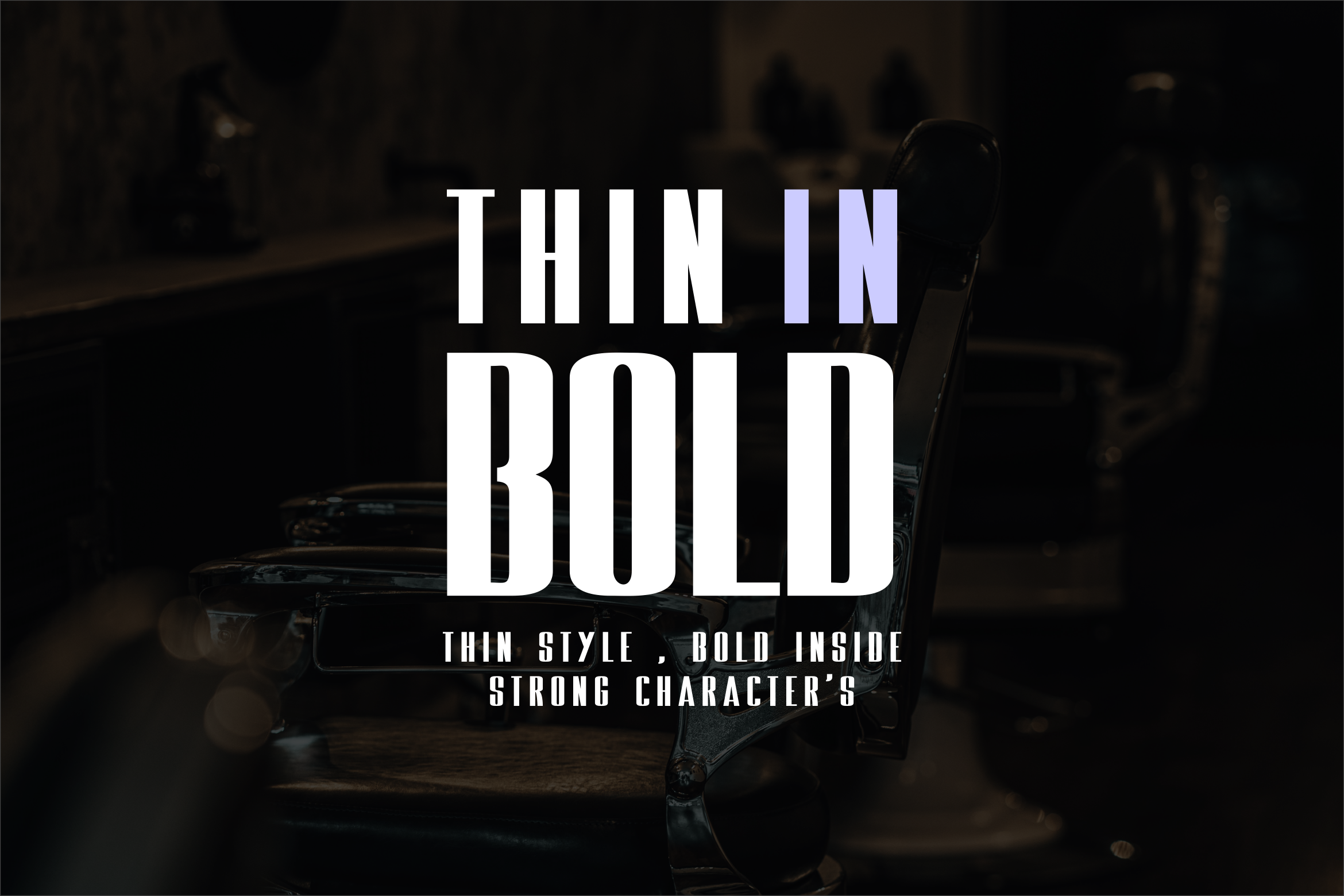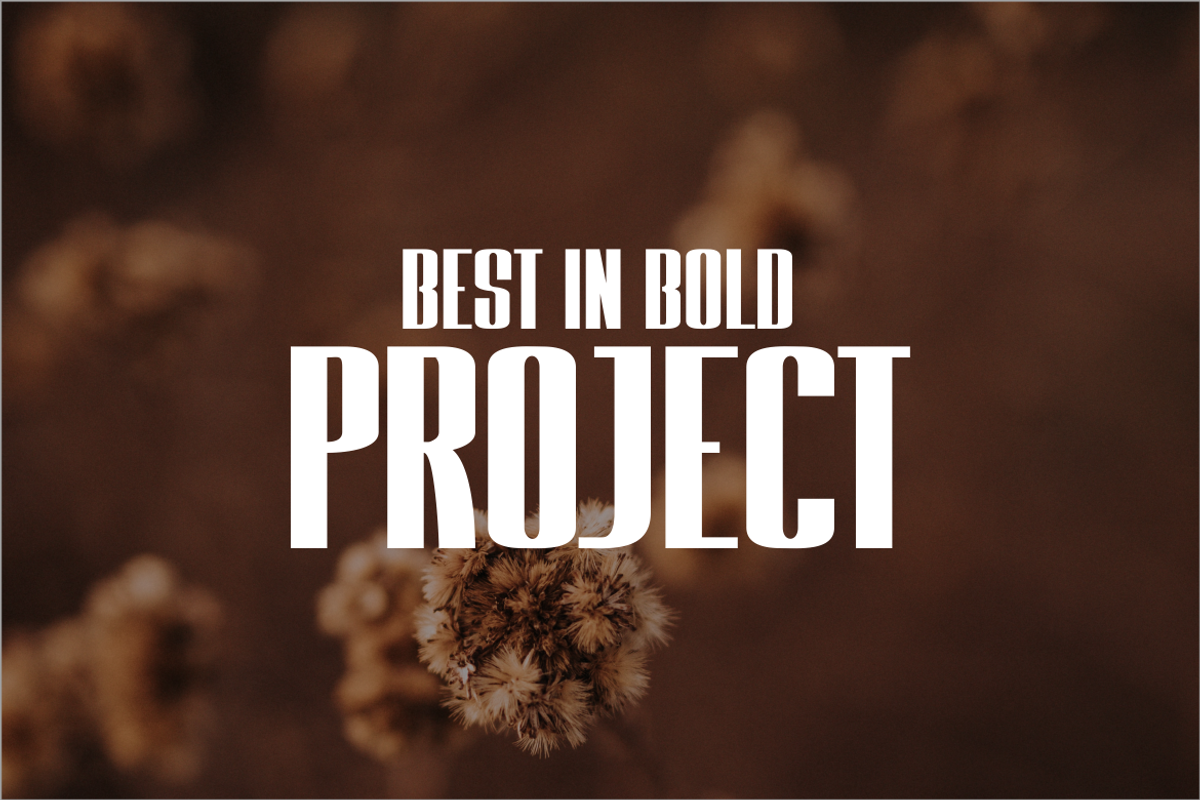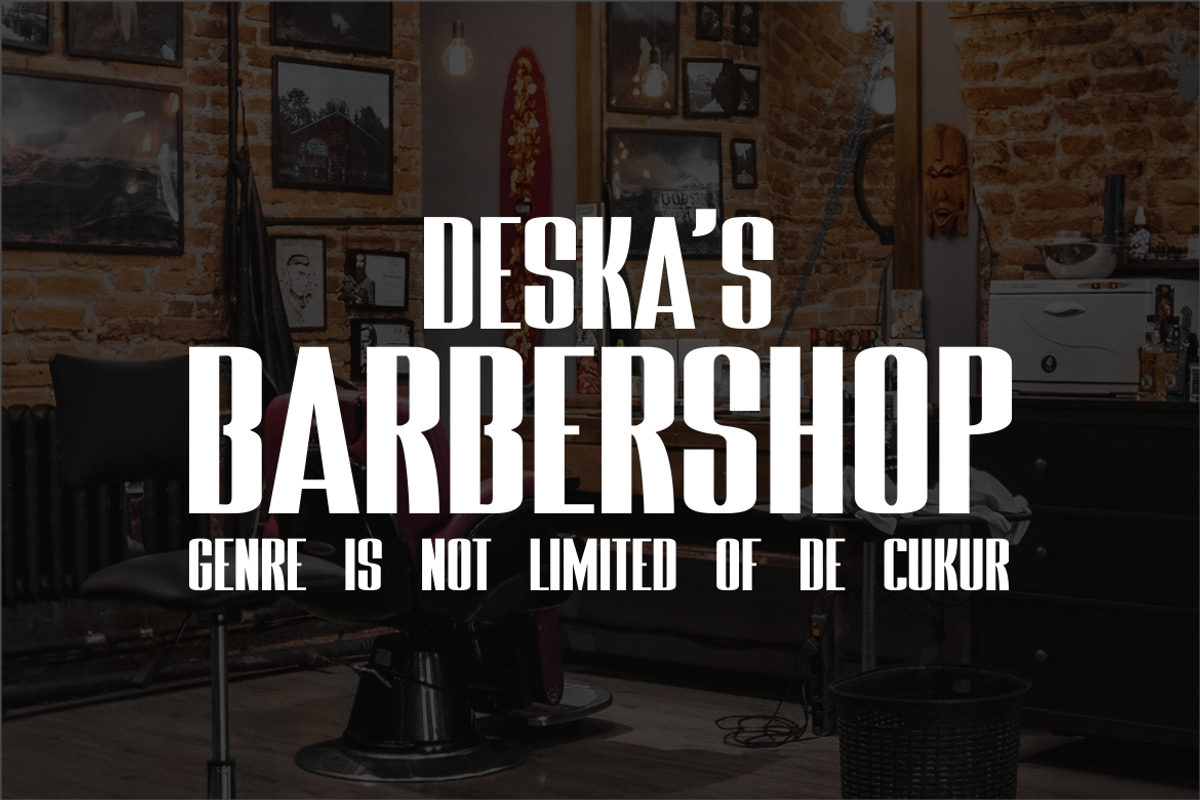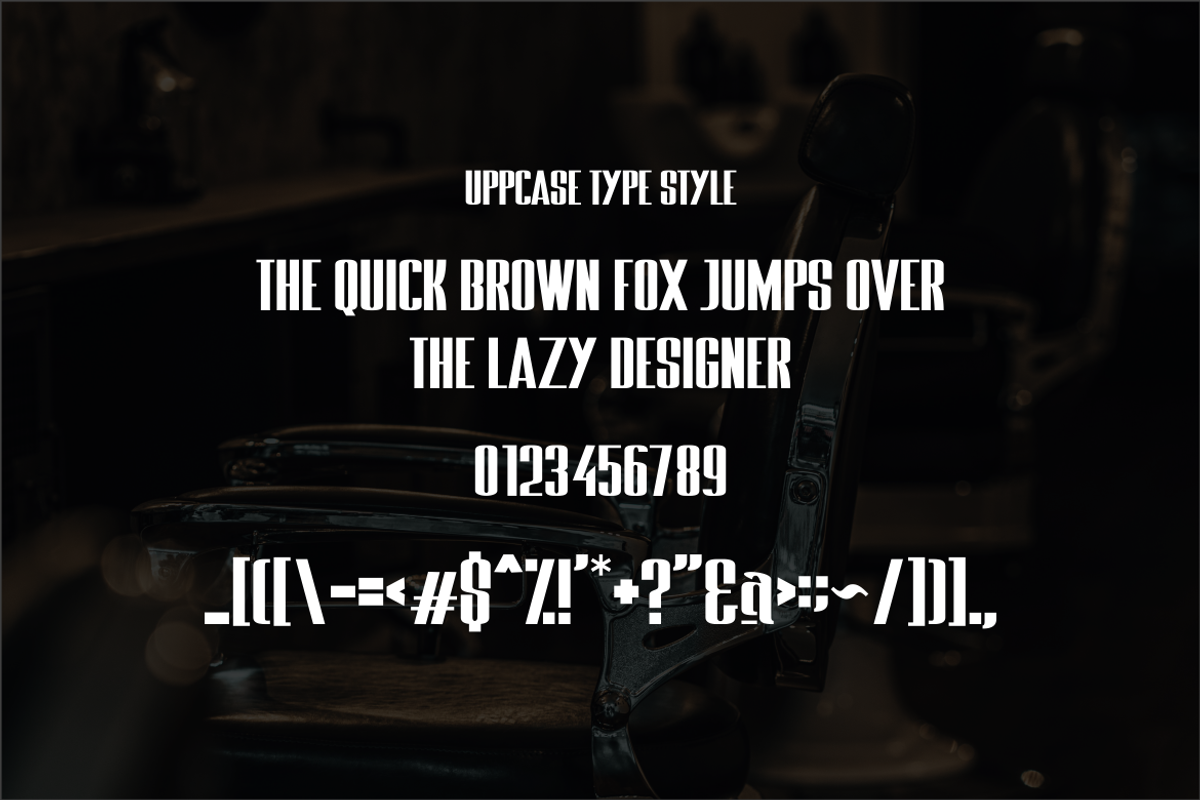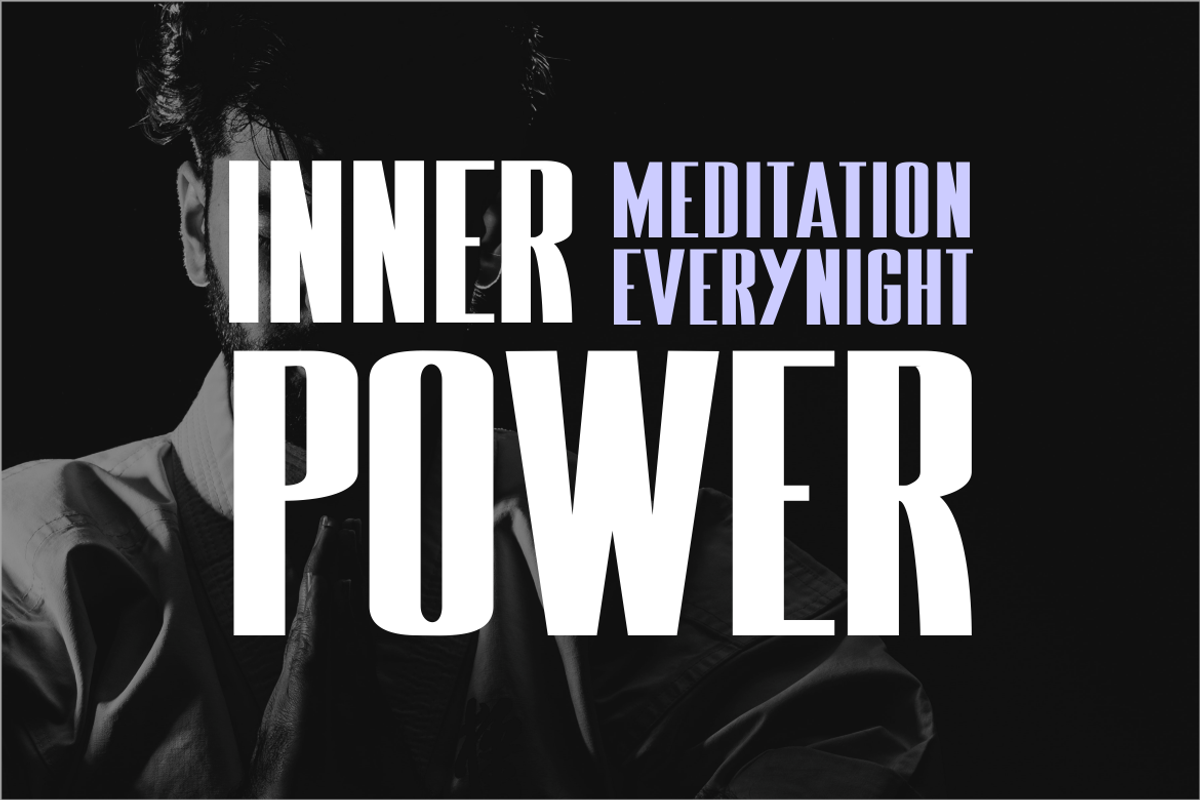
Thin In Bold Font
Thin In Bold Font It has a elegant, classy look and modern. It’s a great font for fashion, apparel projects, signature, album cover,logo, branding, magazine, social media, & advertisements, but also works great for other projects.